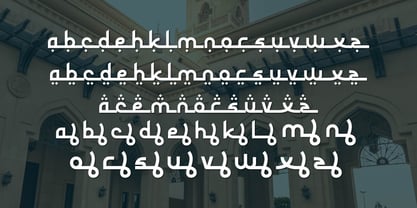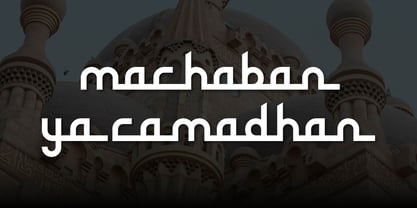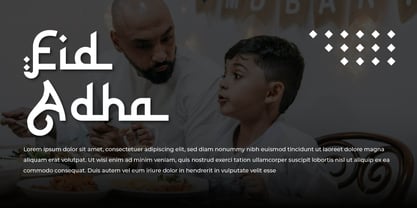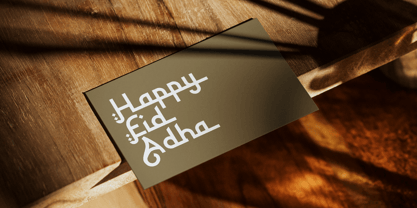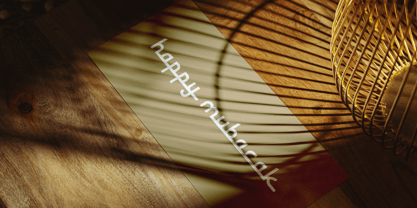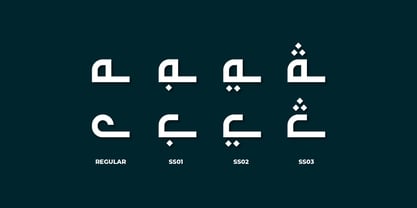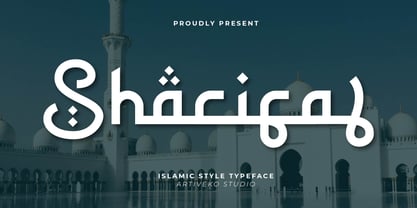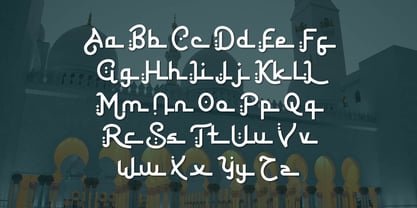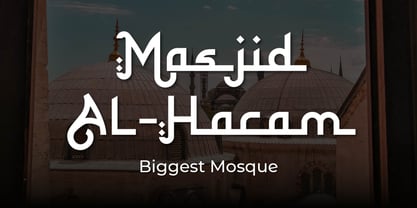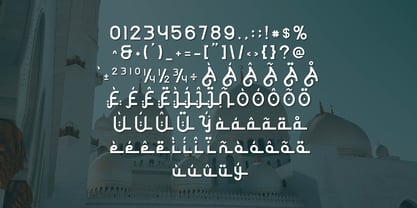
Sharifa
by Artiveko
The Sharifa Font Family was designed by Iwan Alwan and published by Artiveko. Sharifa contains 2 styles and family package options. More about this family
Sharifa is a beautifully crafted Ramadhan-themed font designed with elegant curves and a spiritual touch to capture the essence of the holy month. Perfect for Islamic invitations, greeting cards, branding, and festive designs, Sharifa blends traditional and modern elements for a timeless aesthetic. Featuring multilingual support, ligatures, and alternates, this versatile typeface brings warmth and cultural richness, making it an ideal choice for projects that celebrate Ramadhan and Islamic heritage.
Designers: Iwan Alwan
Foundry: Artiveko